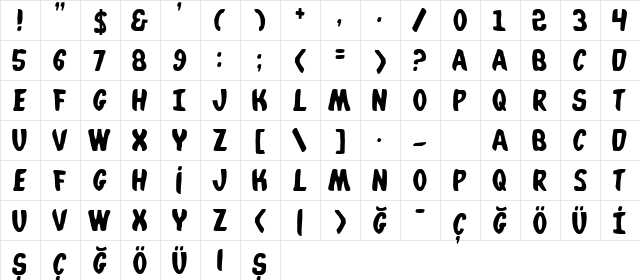
PCLifeWhatafont Regular
Design Context for PCLifeWhatafont Typeface
PCLifeWhatafont is a composed and adaptable typeface that performs quietly and consistently across a wide range of design contexts.
Pro Tip: Use PCLifeWhatafont in both headline and body roles to test its range before committing to a single application.